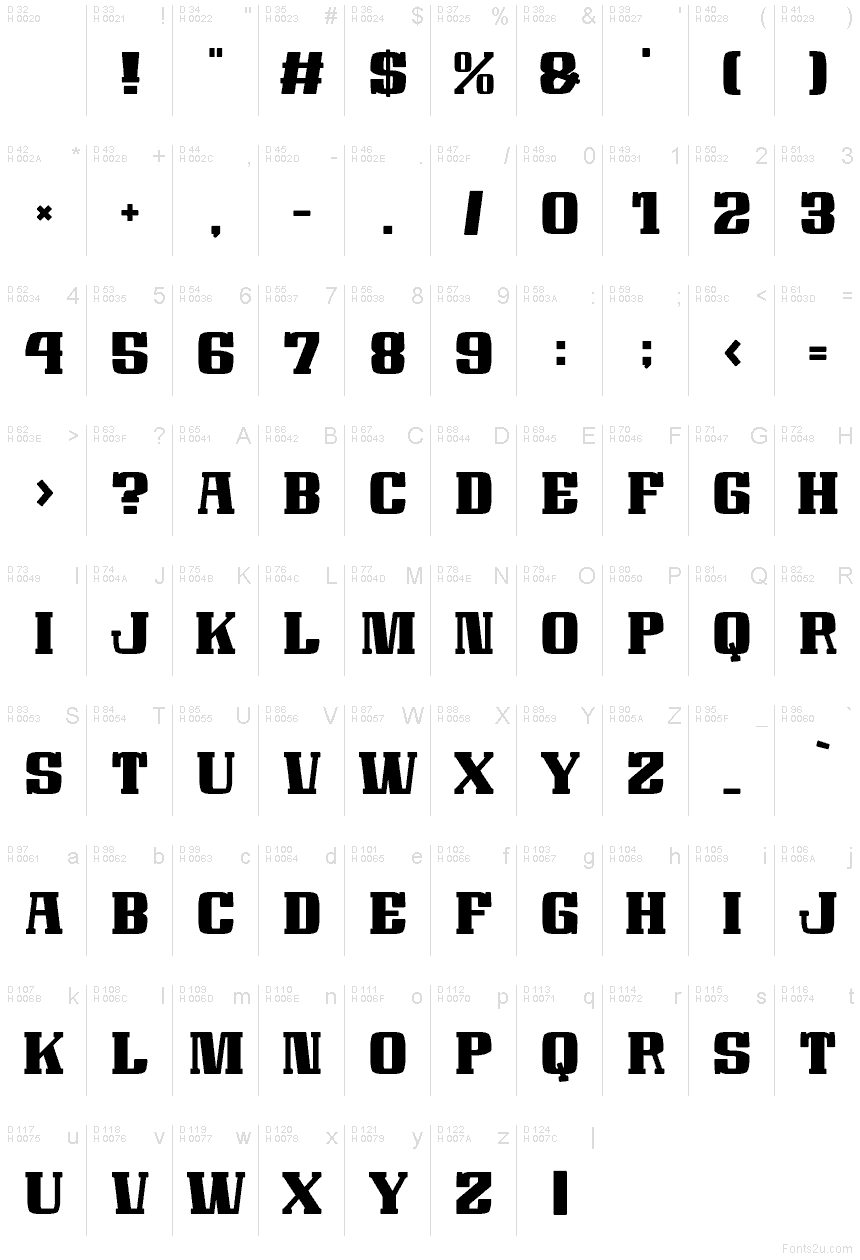
Almond Powder
Almond Powder font is Goma Shin's newest display typeface, designed in a clear geometric style. Its bold letterforms were inspired by sugar-coated almonds and constructed by focusing on various patterns such as square serifs, looped stems, missing strokes, and angled corners. Overall appearance: quirky yet stylish and professional.
So what’s perfect for Almond Powder? Well, almost every design can benefit from this free font as long as it doesn’t seek fine elegance. Editing apps Filters for Instagram & Tiktok? A professional Powerpoint presentation? School teacher worksheets or blogs that need a fresh header font to be more attractive to kids? You name it!
Goma Shin